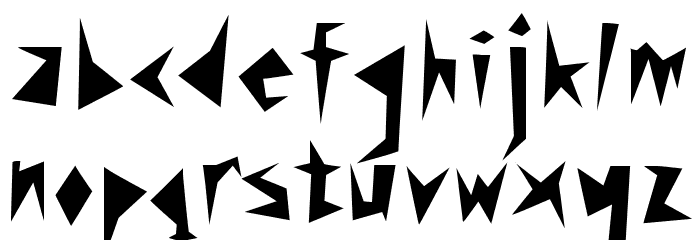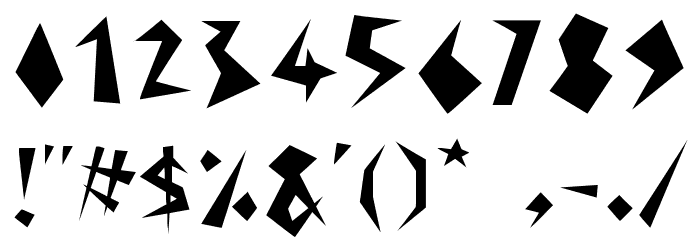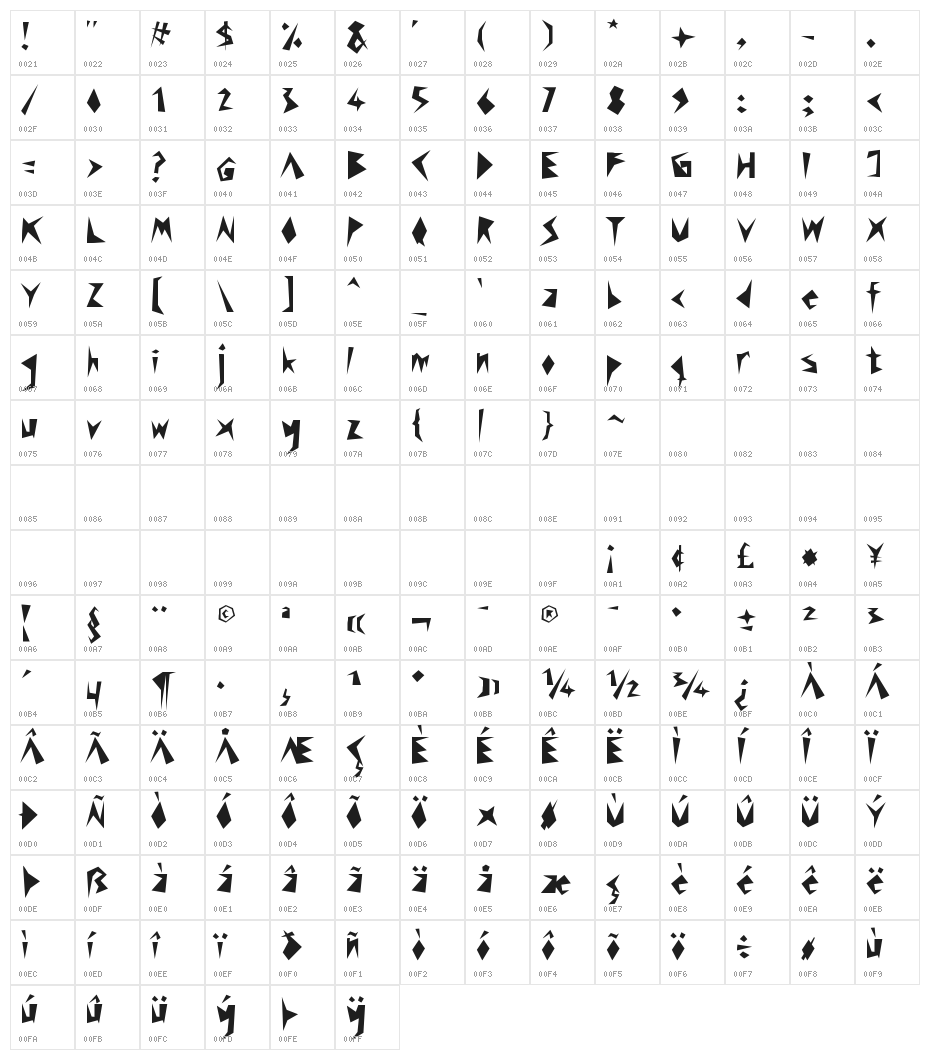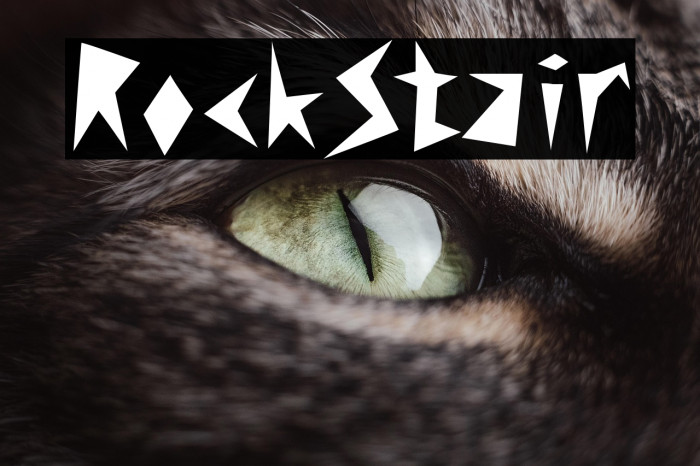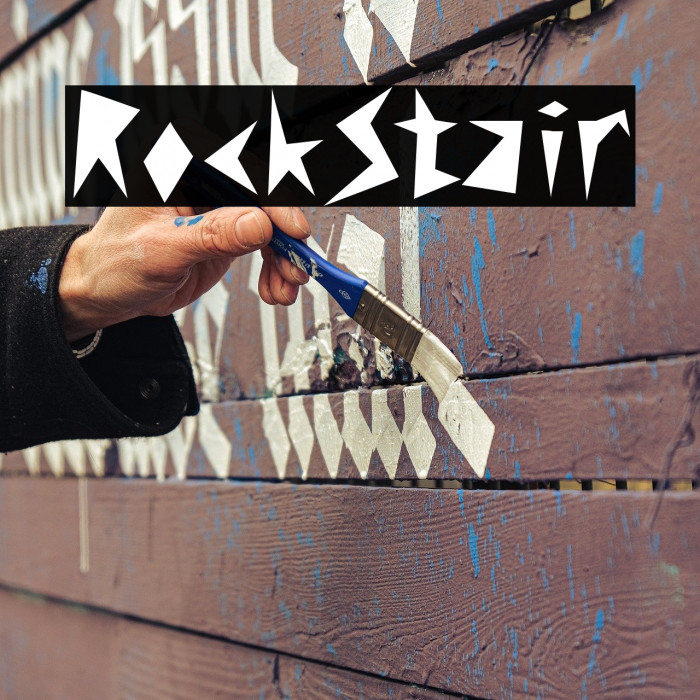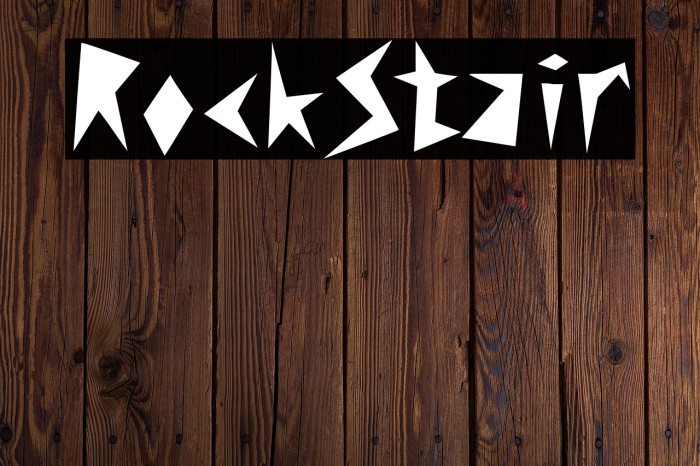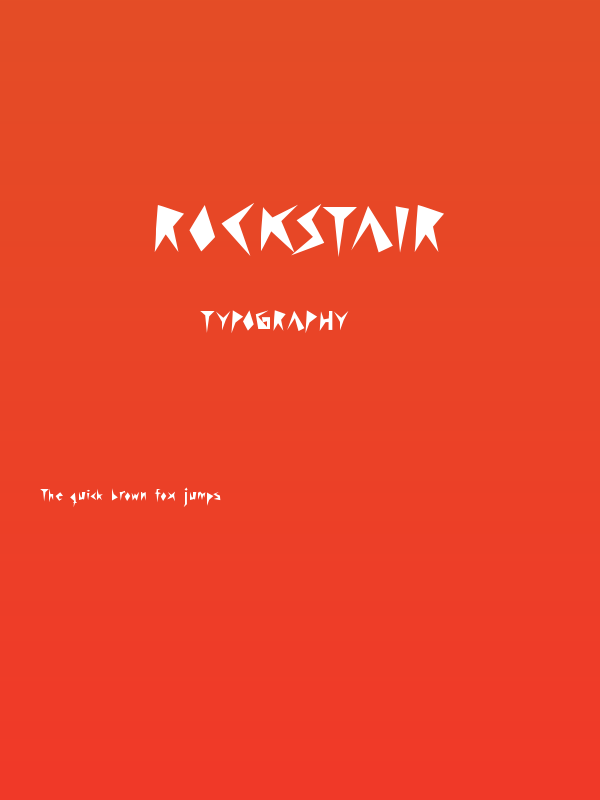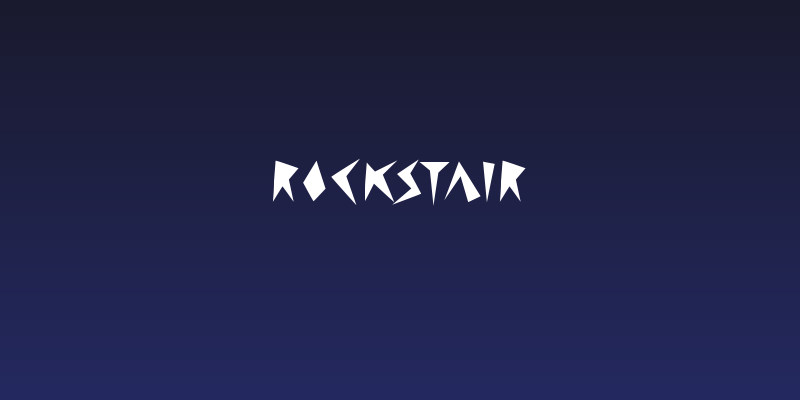
RockStair Font
This font features a bold and edgy design with sharp, angular shapes that give it a dynamic and energetic appearance. The letters are crafted with irregular, jagged edges, creating a sense of movement and intensity. The uppercase and lowercase characters maintain a consistent style, with each letter exhibiting unique geometric forms. Numbers and special characters follow the same angular theme, ensuring a cohesive look across all glyphs. The font's distinct style makes it stand out, ideal for projects that require a strong visual impact.
A bold, angular font with sharp, jagged edges for a dynamic look.
- Proposed Projects: Perfect for music album covers, posters, logos, and any design needing a bold, edgy aesthetic.